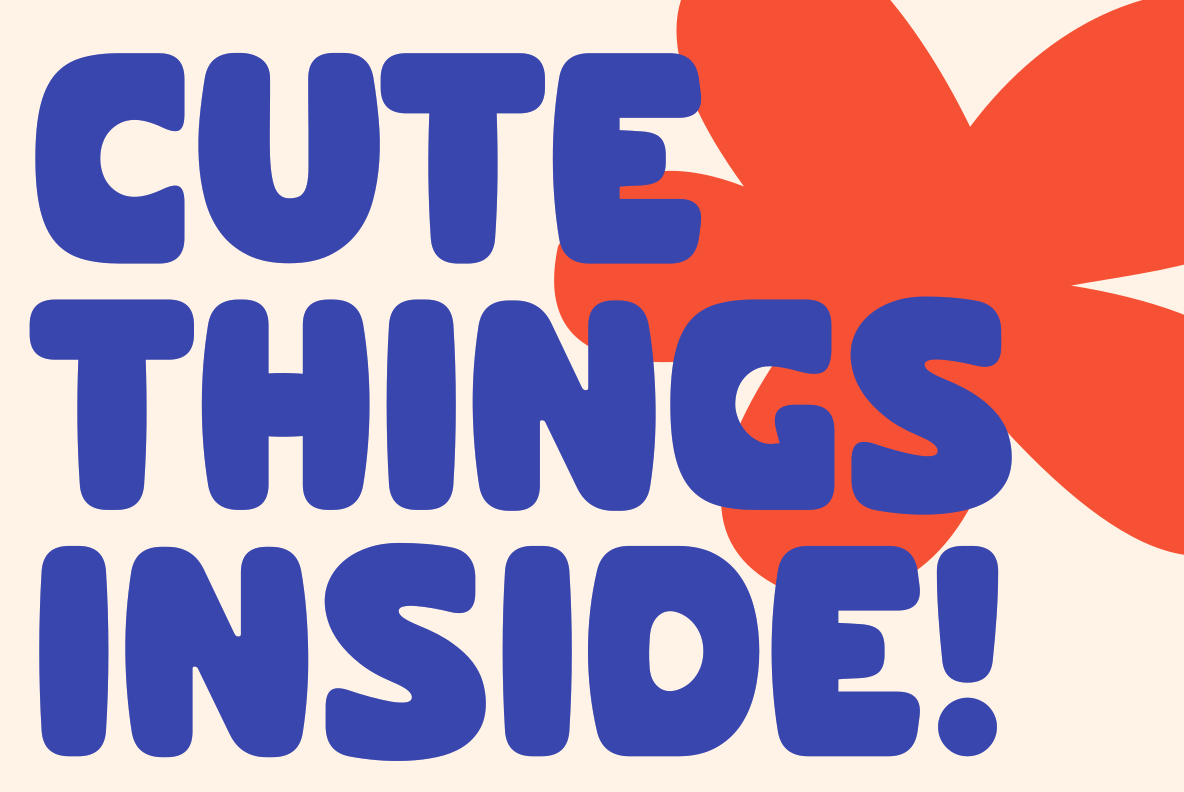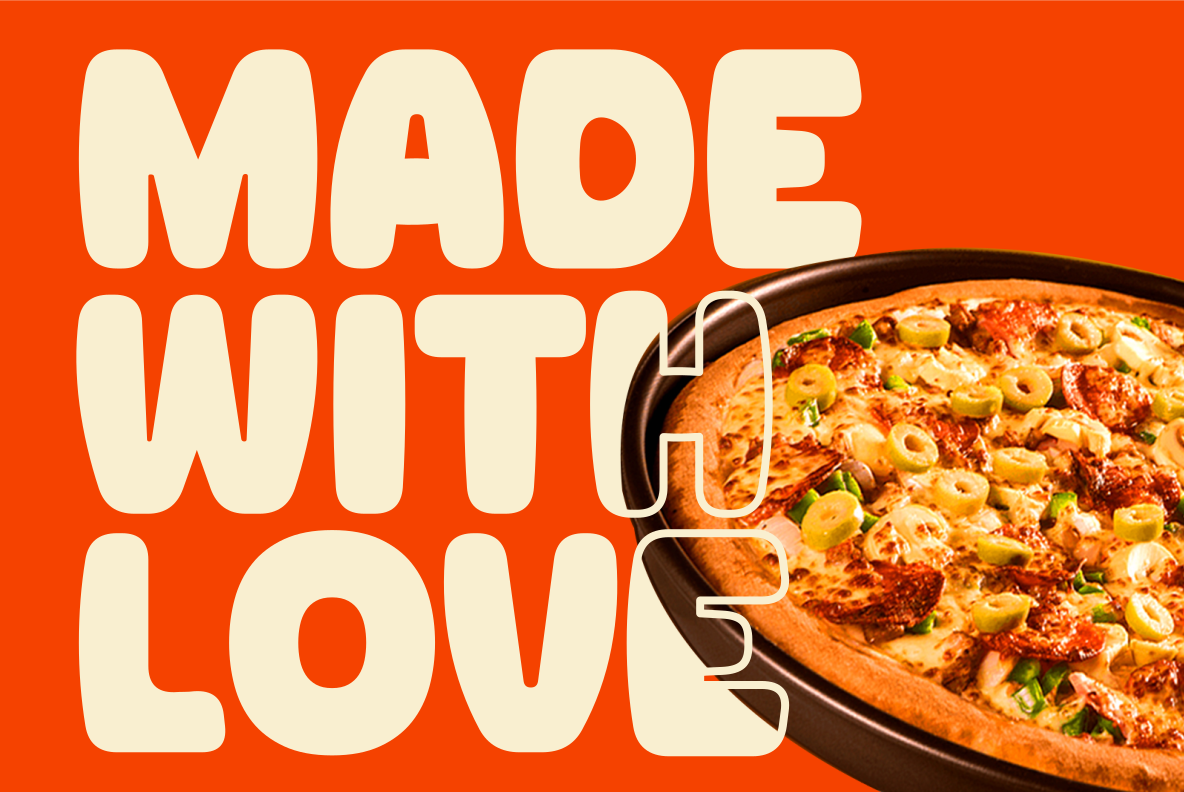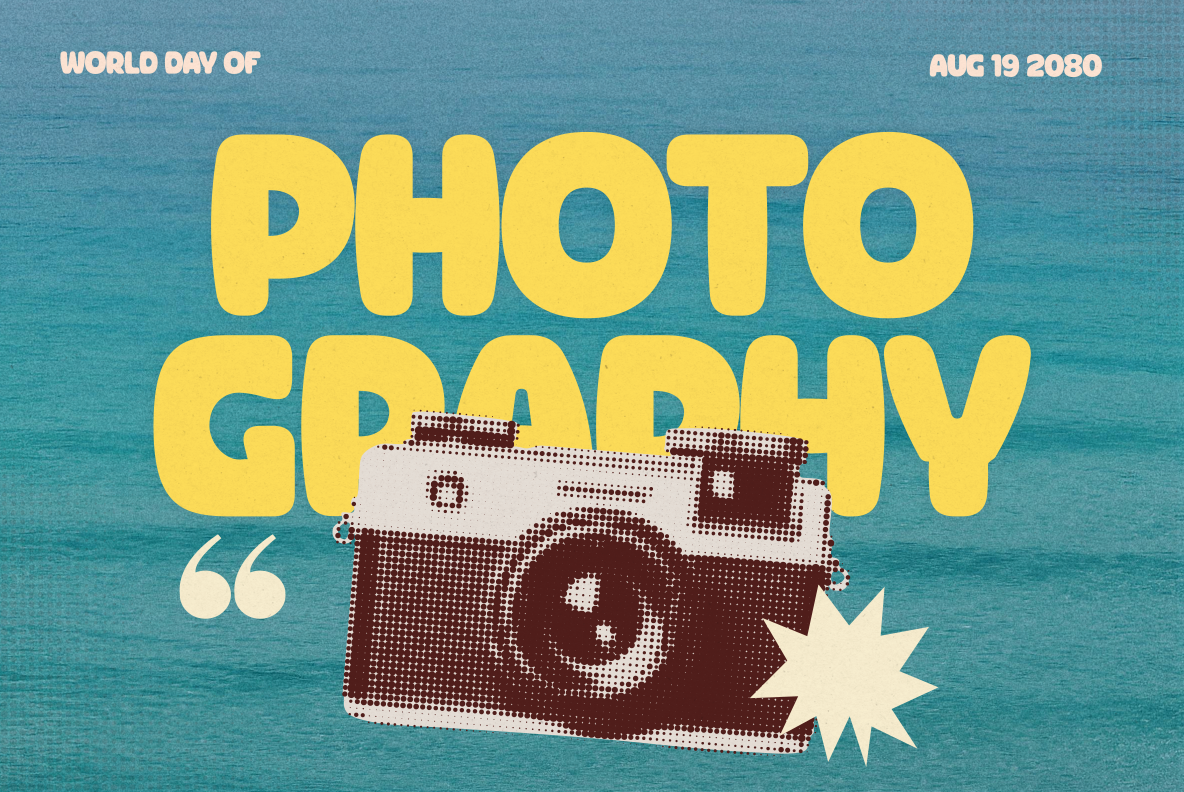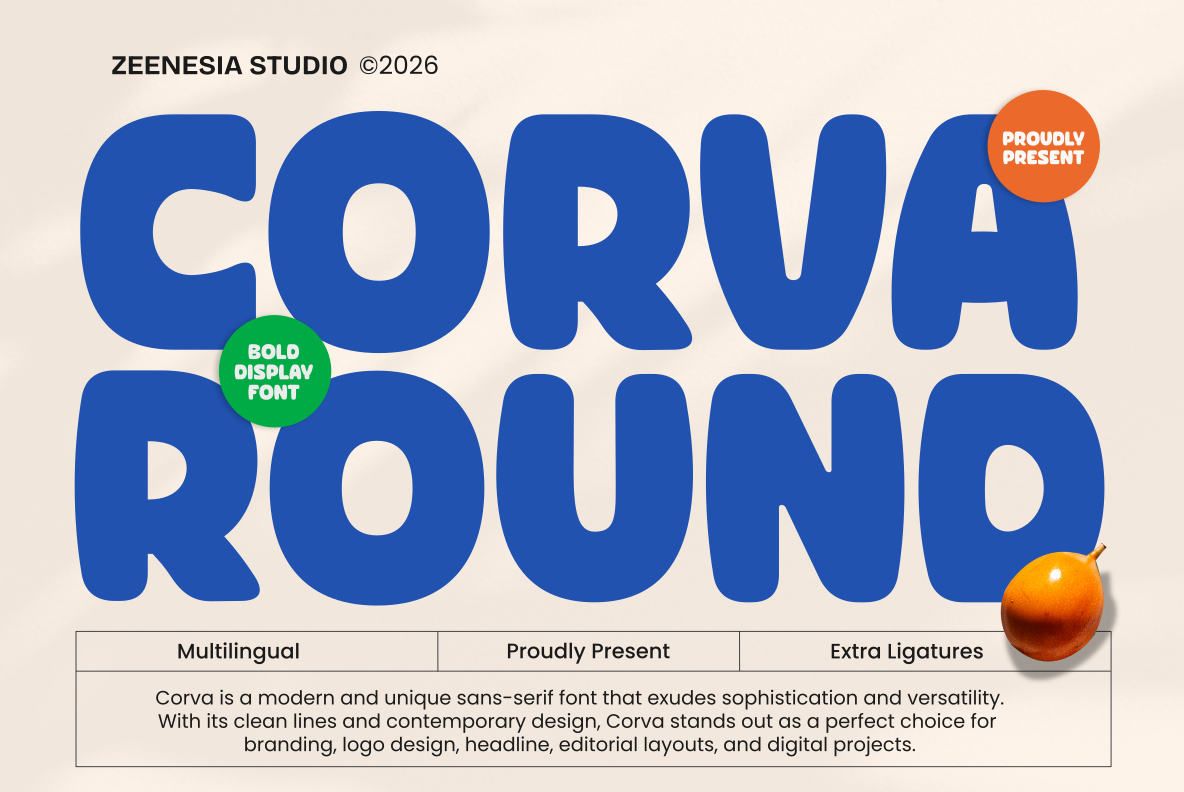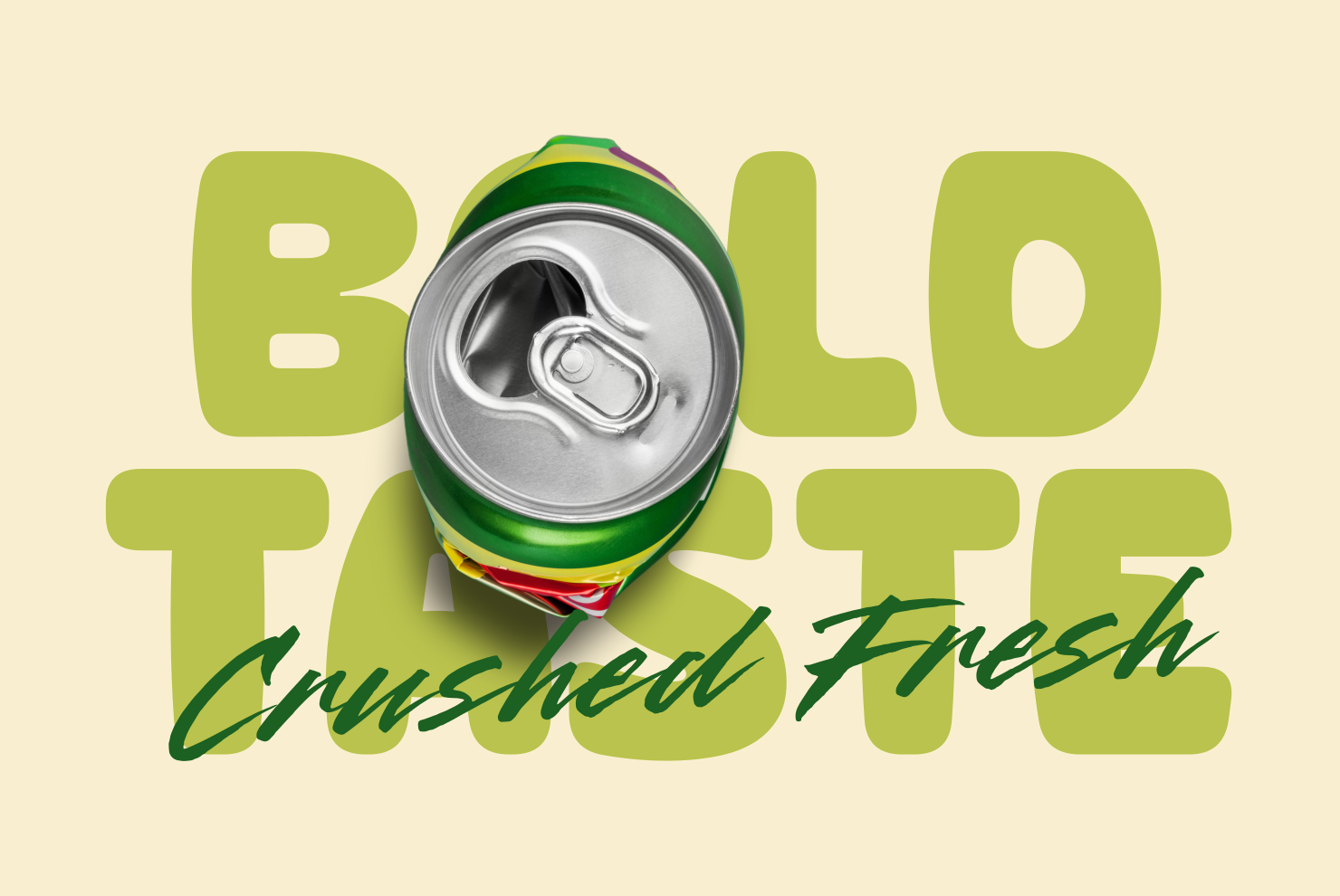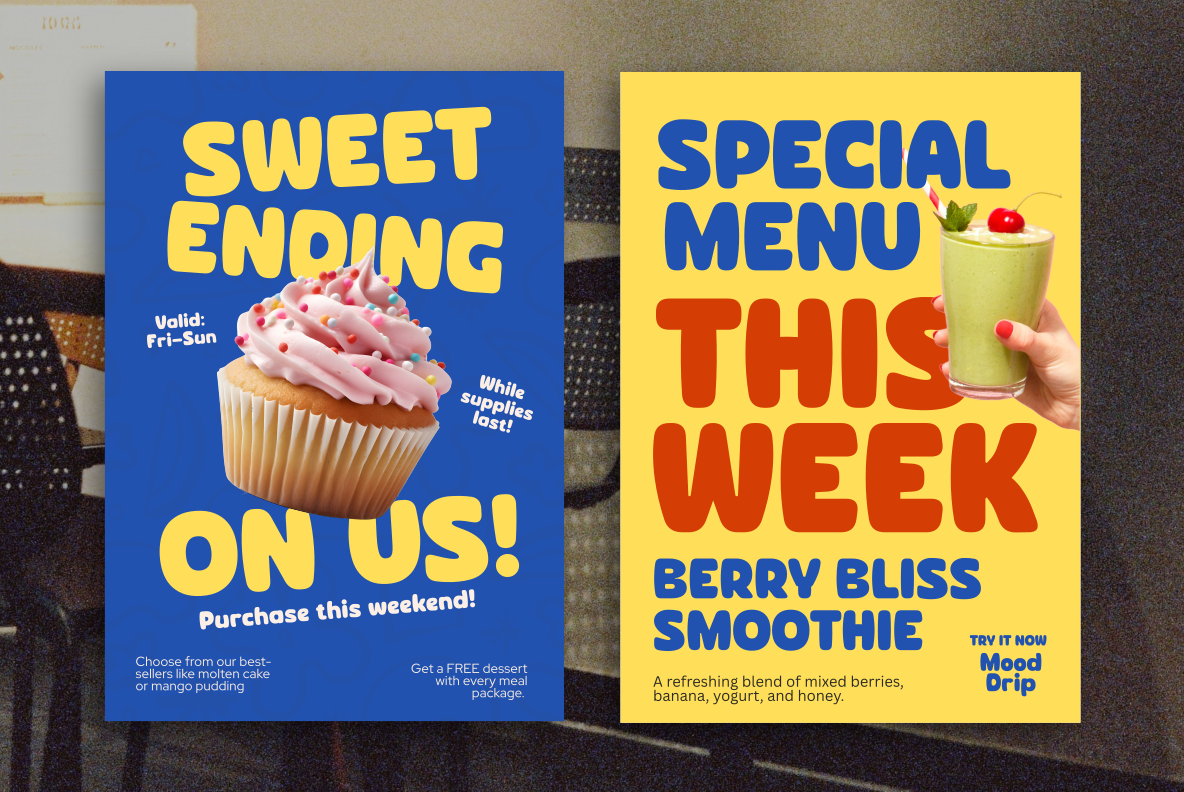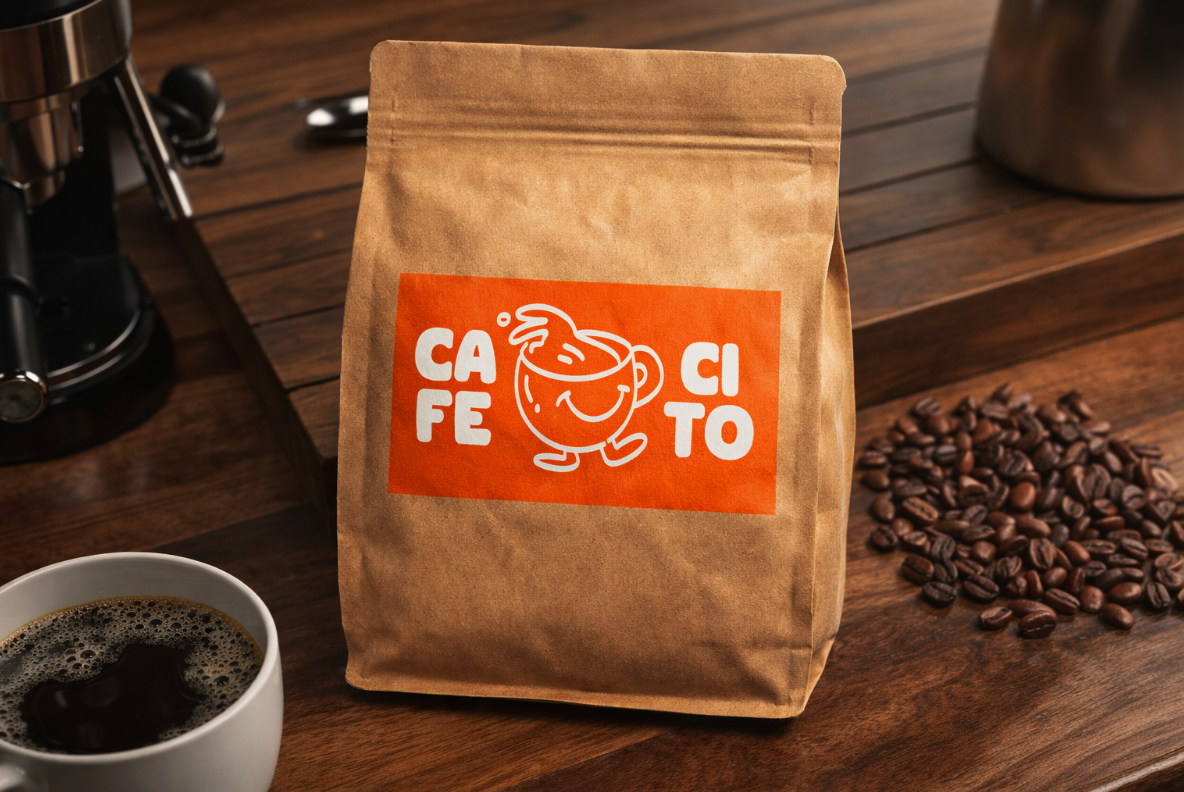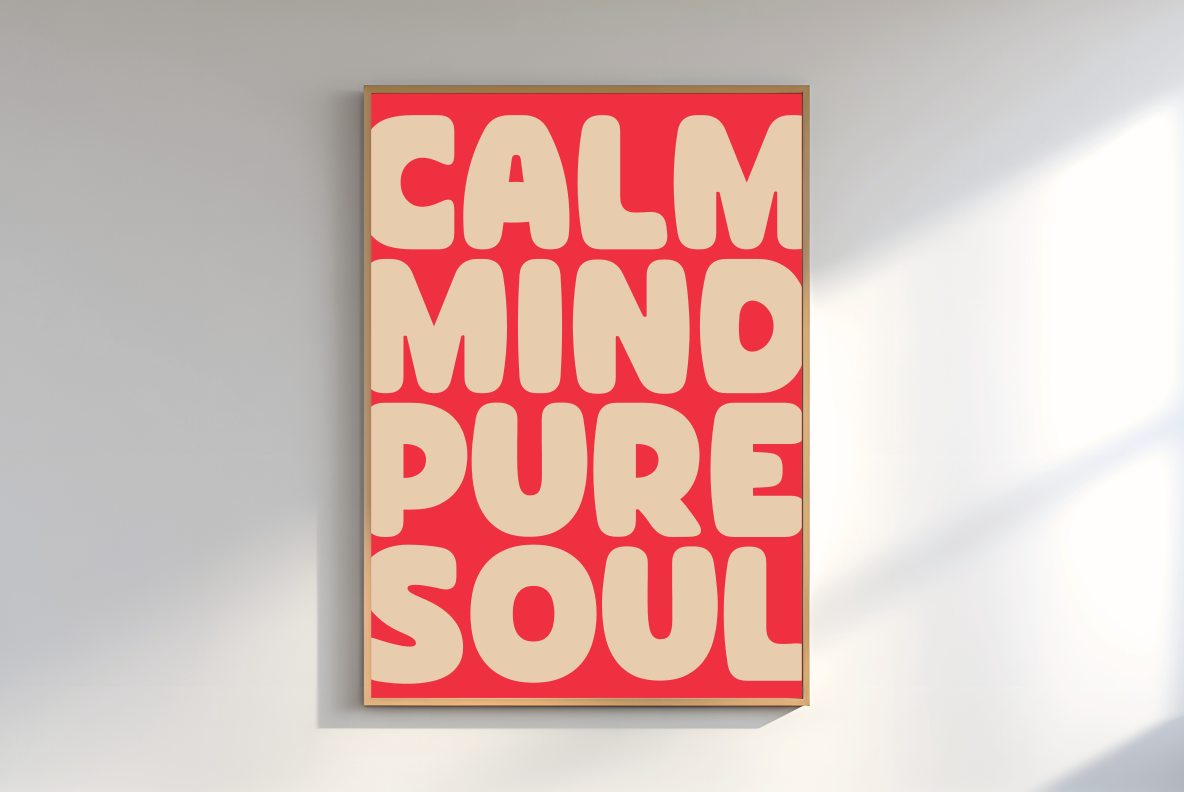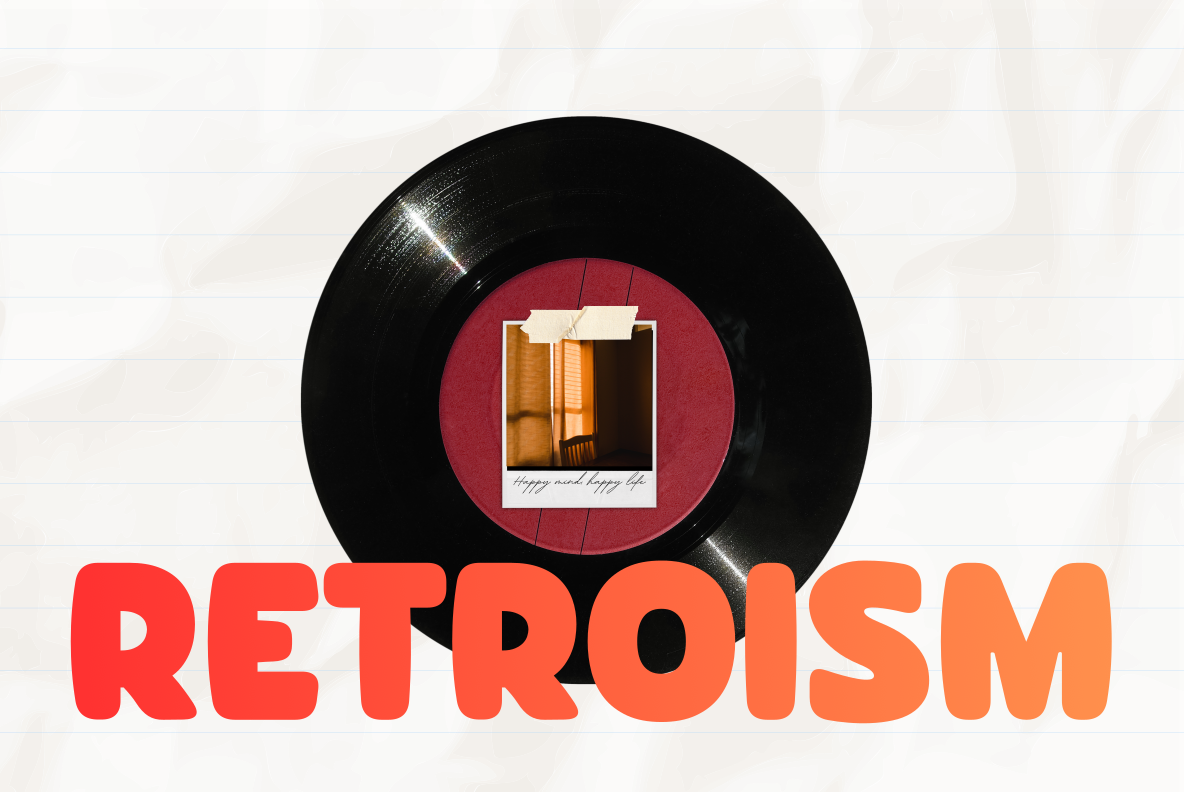
Corva Round
zeenesia
Corva Round by zeenesia is a modern rounded display font that blends bold structure with smooth, friendly curves. Its clean and playful style makes it perfect for creating eye-catching typography while keeping a modern and approachable feel. Corva Round works beautifully for branding, headlines, packaging, and digital design projects.